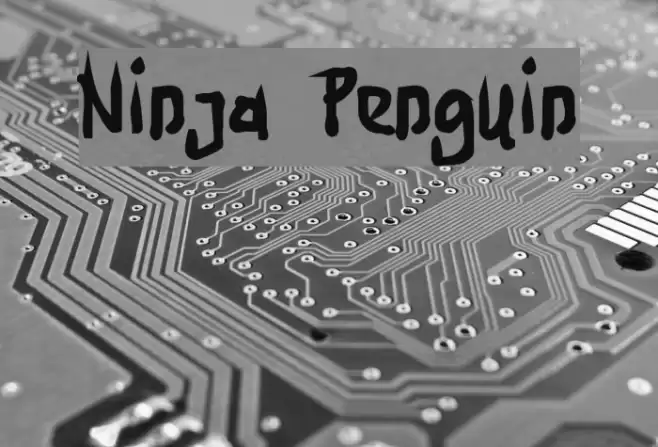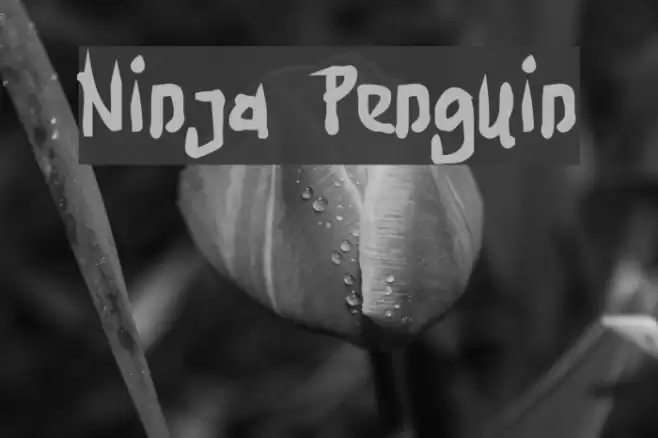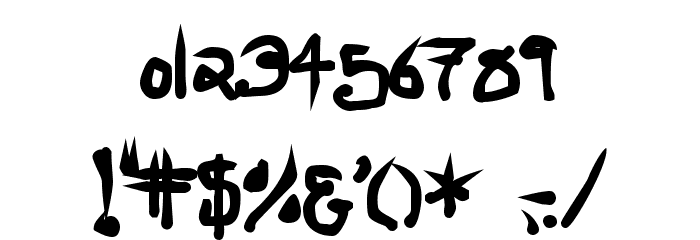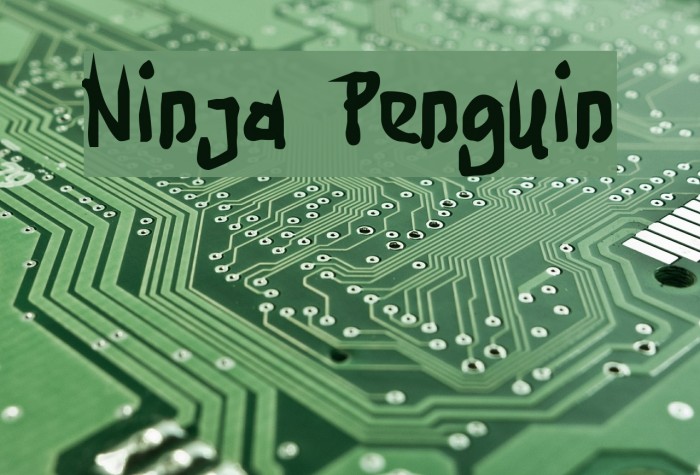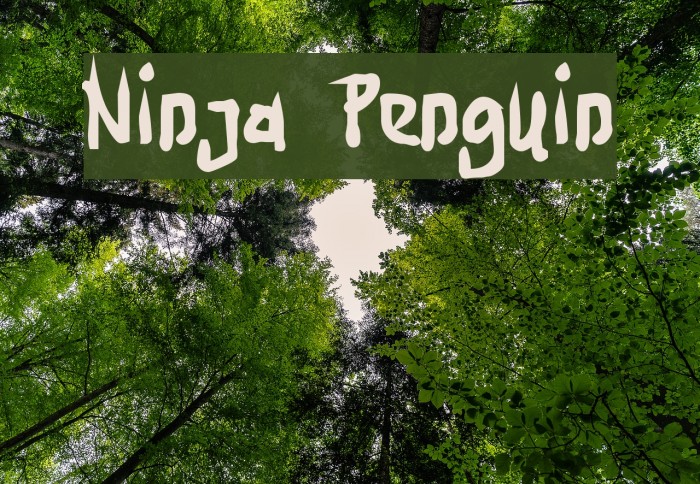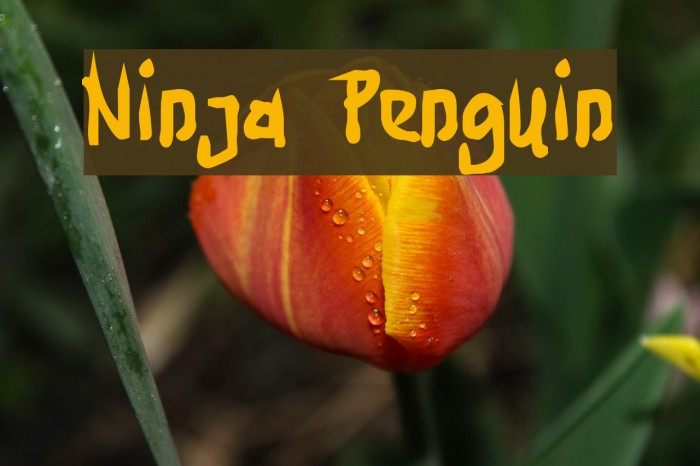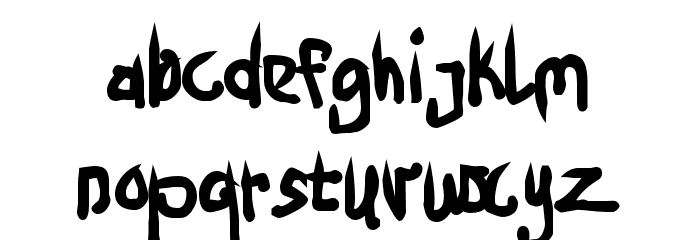
Ninja Penguin Font
Ninja Penguin Description
This font exudes a dynamic and energetic style, characterized by its bold, brush-like strokes that give it a hand-drawn appearance. The letters are slightly irregular, adding a sense of movement and spontaneity. The uppercase and lowercase letters maintain a consistent flow, while the numbers and special characters complement the overall aesthetic. The font's playful yet edgy design makes it suitable for projects that require a touch of creativity and uniqueness.
A bold, brush-style font with a dynamic, hand-drawn appearance from Script fonts.
- Proposed Projects: Ideal for creative projects such as posters, album covers, branding for edgy or artistic businesses, and social media graphics.
- Overall Style: Modern, Artistic